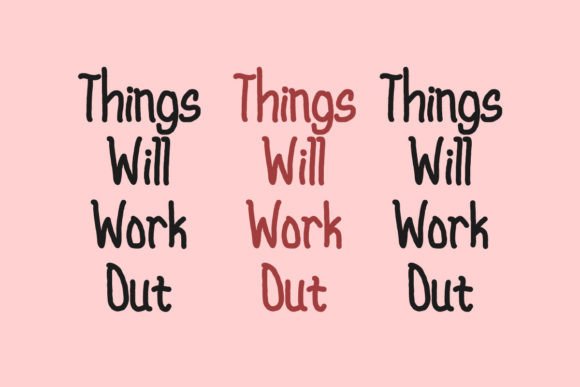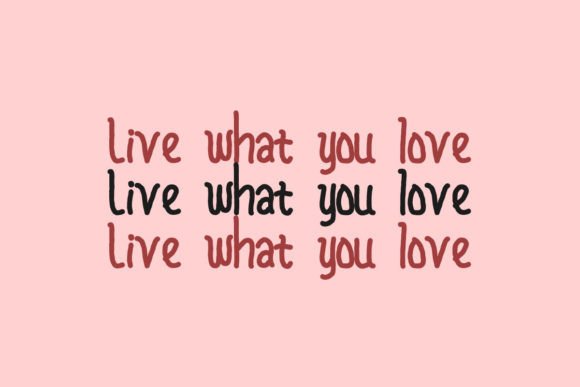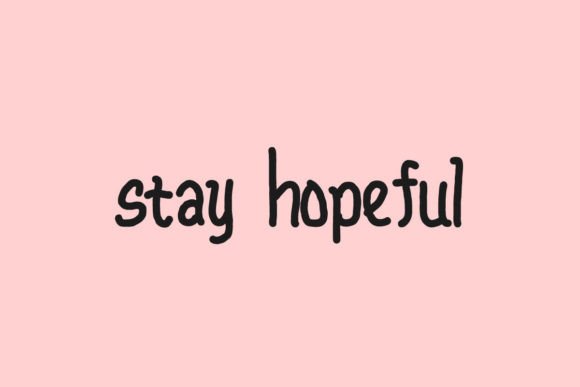
Stay Lazy Font
About Stay Lazy Font
Stay Lazy is a cute and adorable handwritten font. This font is perfect for crafts, children’s books, covers, stickers, and other creative ideas.